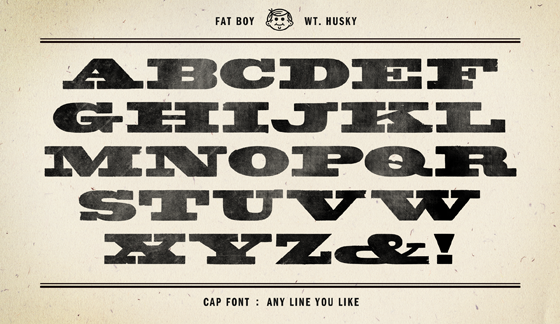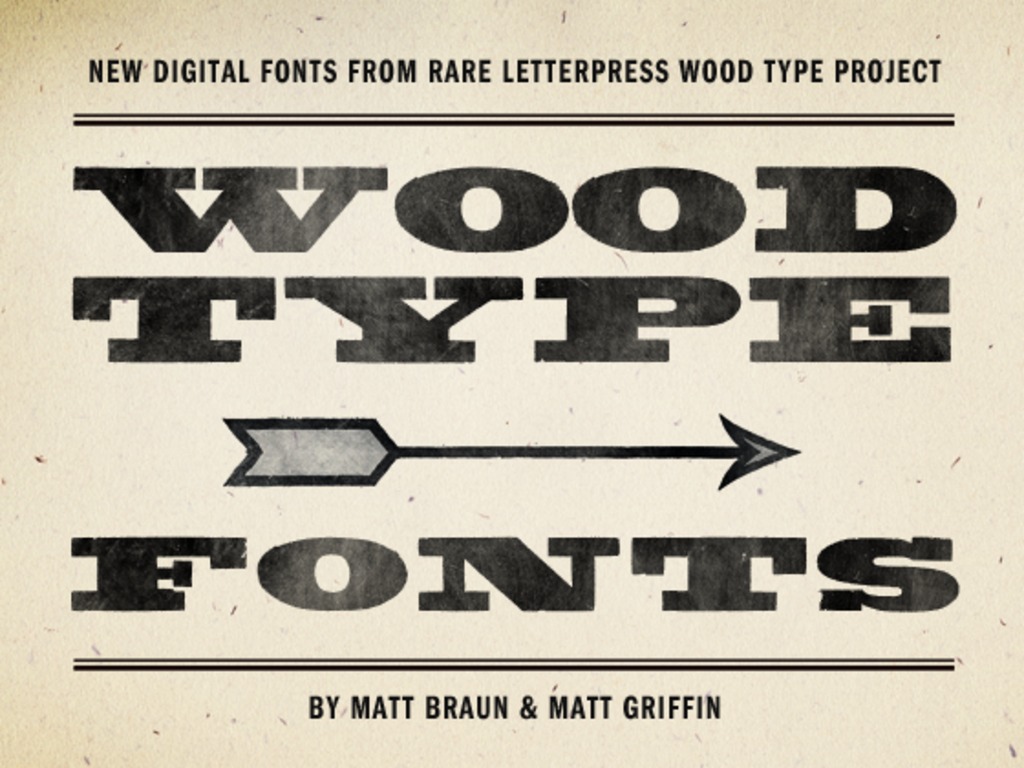
About this project
(Check out our free beta font, Fatboy Husky, at the bottom of the page.)
Why We Love Wood Type
Before the days of computers and digital type, letterforms were drawn by hand, cut into wood, and printed onto paper on grand machines: a process known as letterpress printing.
Wood type was for larger sizes than its metal counterpart, and therefore leant itself to display faces in an arms-race-style battle of typographic one-upmanship. Posters using wood type needed to grab the attention of passersby, so type designers concocted ever more fanciful typefaces to outdo their competitors.
These heady days produced typefaces the likes of which cannot be matched by modern day digital standards: fanciful tuscans, outlines and inlines, multi-color chromatics faces, and some that seem unclassifiable. But these wild old faces exist still in basements, garages, and attics – occasionally gasping for air on Ebay, before being swallowed up again, away from the public eye.
But we aim to change that.
We two hearty designers are letterpress printers, yes – but also men of computers and the Internets! We wish to scour the globe for 10 of the most prized fonts of wood type we can acquire. And then we will print these faces on our trusty Vandercook proof press, and carry them over into the world of vectors and Opentype font-ery.
We will purposefully seek out faces with characteristics the digital world is lacking, that are in fine condition, and that are thoroughly complete. Many wood type faces are uppercase only, but we will hope to find some that include lowercase – and always figures and punctuation whenever possible.
We will also include damaged letters (with telltale knicks, dings, and scratches) as alternate characters, so that you can have proper variation in your typesetting. And we will print each face using various levels of pressure, to get multiple textures inside the type, which we will package as multiple weights for the digital font.
Fatboy Husky
To test out our idea and show off what we can do, we created the beta version of our first font from our existing collection of wood type. It's a gorgeous bold, extended slab-serif with the telltale character of a hand-carved typeface. We're calling it Fatboy, and the weight is Husky.